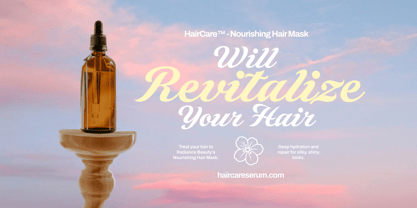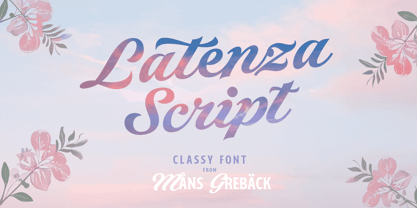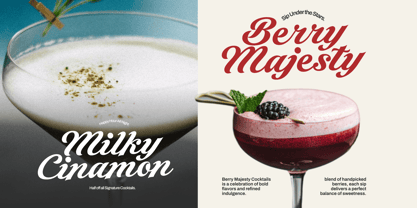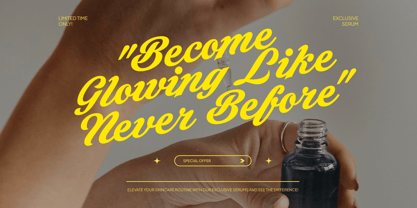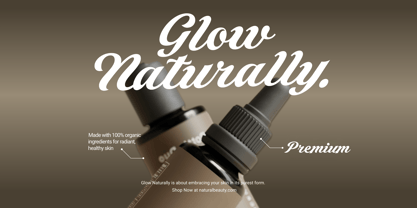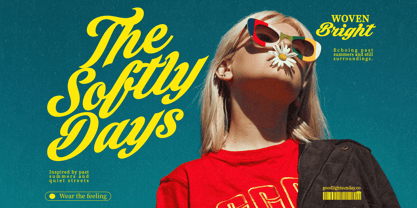
Latenza Script
La familia tipográfica Latenza Script fue diseñada por Måns Grebäck y publicada por Mans Greback. Latenza Script contiene 4 estilos y opciones de paquete familiar. Más información sobre esta familia
Latenza Script is a flowing calligraphic script with a soft, composed rhythm. The letters move with long strokes and gentle turns, giving the text a calm confidence rather than a loud flourish. It carries a classic feeling, but with relaxed proportions that make it feel natural and contemporary. The connections are smooth and intentional, allowing words to breathe while still holding together as a unified line. Designed by Måns Grebäck, Latenza Script focuses on balance and readability within a handwritten form. The design favors clarity and elegance, letting the details support the text instead of overpowering it.
Måns Grebäck is a type designer and font creator specializing in script typography, but with a portfolio containing a vast selection of styles. Typefaces from Måns Grebäck are used as company and product logotypes, as well as headlines and in advertisement by a wide range of industries world-wide. Founded by Måns Grebäck in 2010, Mans Greback AB originally went under the name of Mawns Fonts and later Aring Typeface AB. While the foundry has its seat Örebro, Sweden, Måns also lives in Portugal. The Premium Foundry page can be viewed Here.